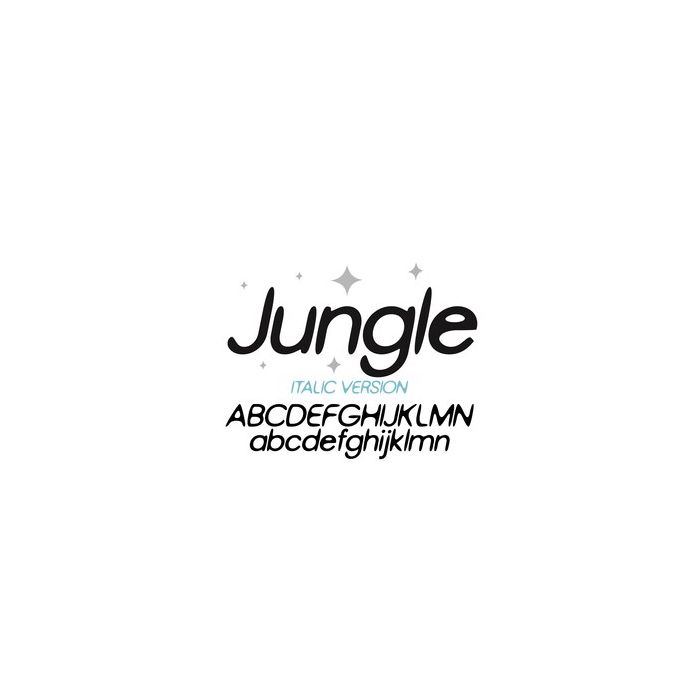
Jungle Italic version is a unique and characteristic font style that skillfully displays a natural style for your flagship design product which is very suitable for projects, display logos, branding, screen printing, crafts, social media, and personalization of celebrations. Includes alphabet, ligature, numbers and punctuation.